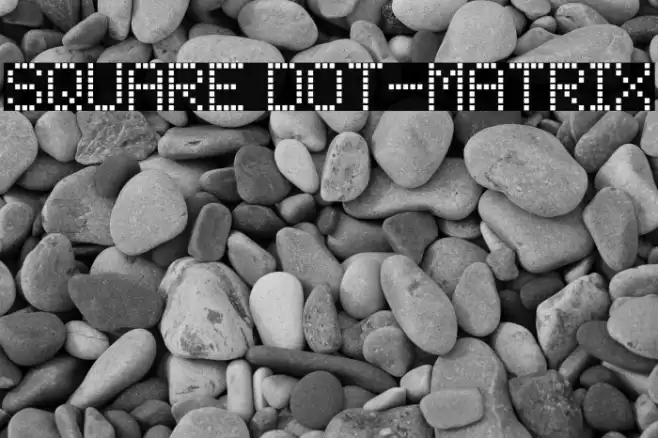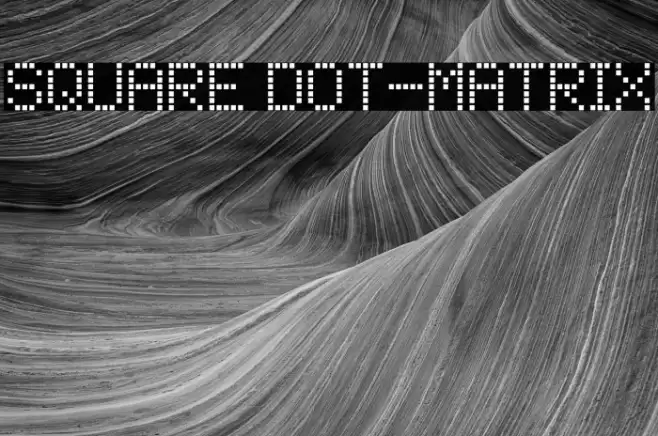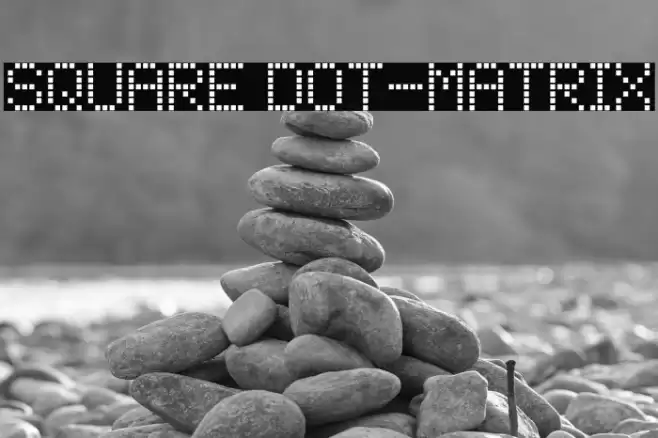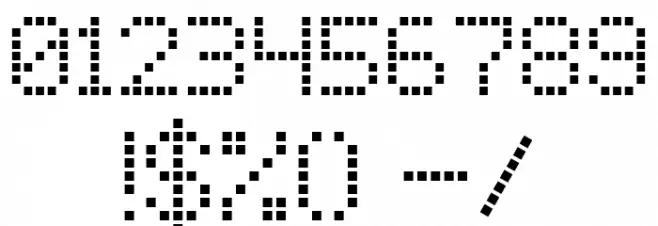
Square Dot-Matrix Font
Square Dot-Matrix Description
This font features a unique square dot matrix design, reminiscent of digital displays and retro technology. Each character is constructed from a grid of small, evenly spaced squares, creating a pixelated effect that is both modern and nostalgic. The uniformity of the squares gives the font a structured and mechanical appearance, making it ideal for projects that require a digital or technical aesthetic. The characters are clearly legible, with consistent spacing and alignment, ensuring readability even at smaller sizes. This font's distinct style makes it suitable for creative and innovative designs.
A pixelated, square dot matrix font with a digital and retro feel from Regular fonts.
- Proposed Projects: Ideal for digital displays, retro-themed designs, tech branding, and creative posters.